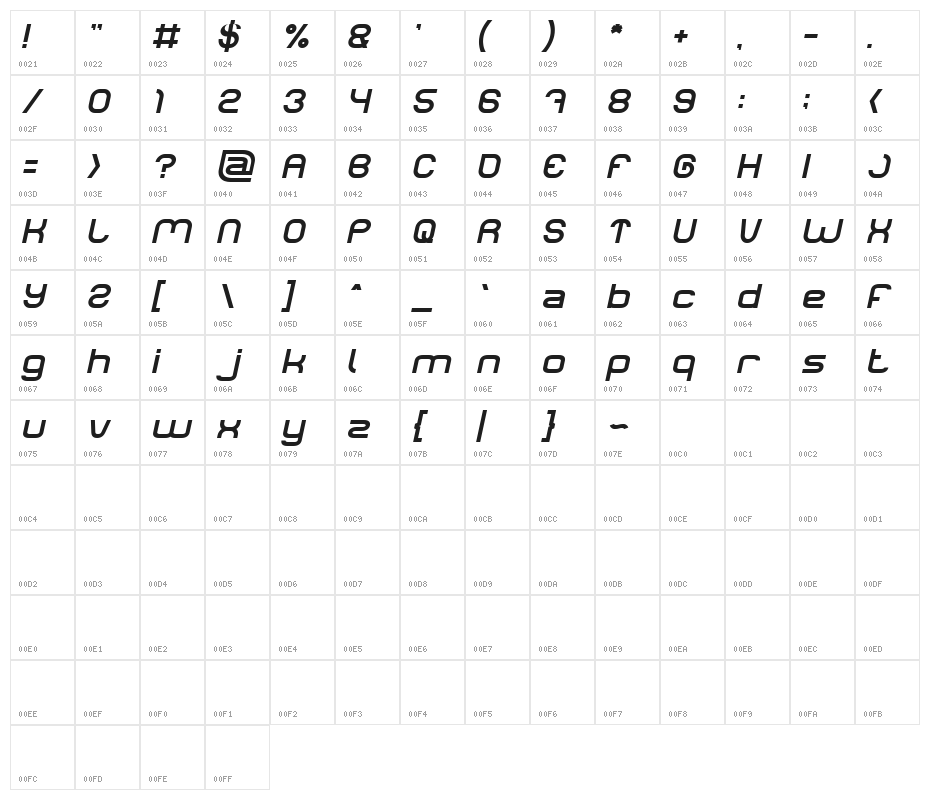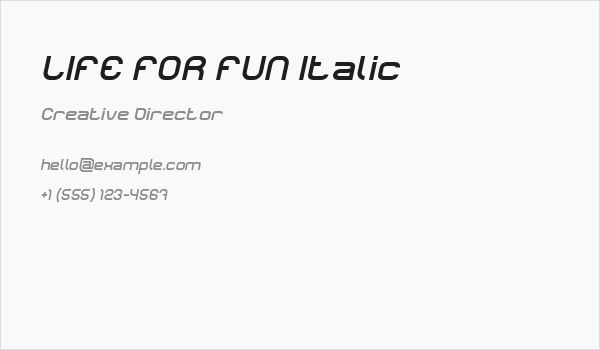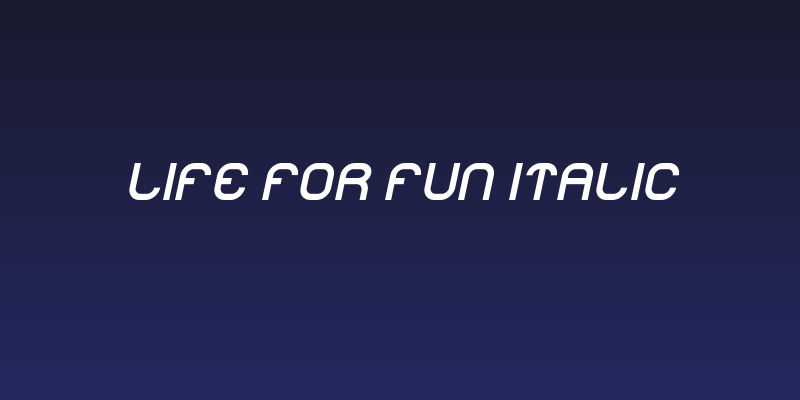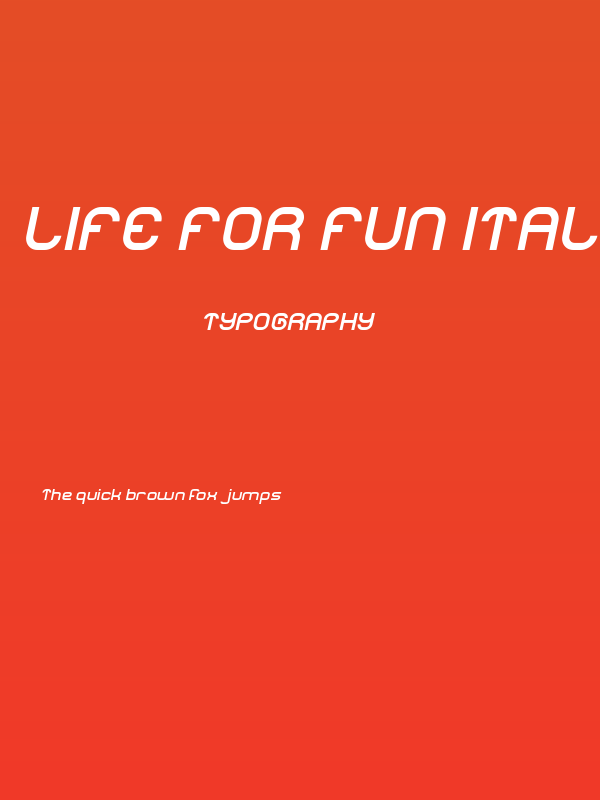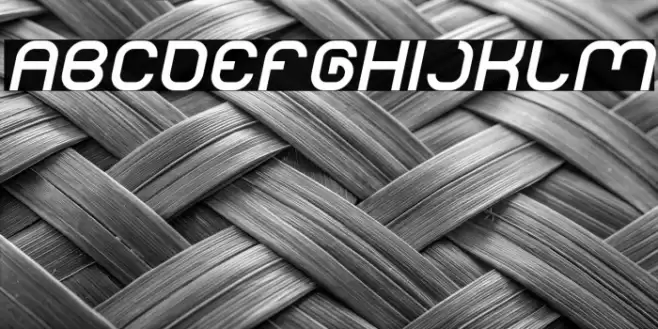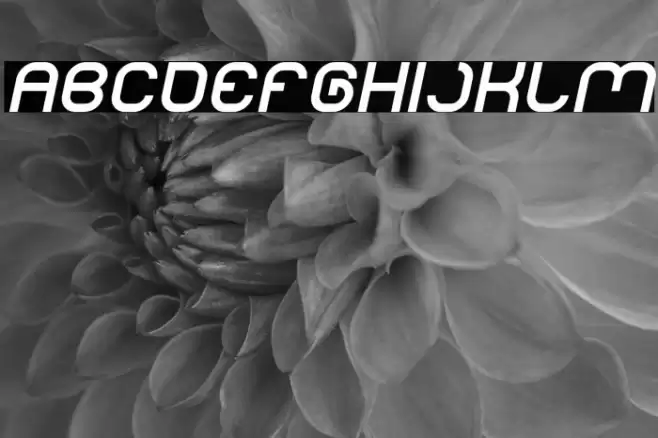
LIFE FOR FUN Italic Font
This font features a modern, sleek design with a slight italic slant, giving it a dynamic and forward-moving appearance. The characters are rounded with a consistent stroke width, contributing to a clean and uniform look. The uppercase and lowercase letters maintain a harmonious balance, while the numerals and special characters are crafted to match the overall style seamlessly. The font's design is both contemporary and versatile, making it suitable for various applications. Its smooth curves and subtle angles add a touch of elegance, while the italic style enhances its sense of motion and energy.
| Use Case | Headlines, Logos, Advertising |
| Proposed Projects | Ideal for branding, advertising, sports-related designs, and modern web interfaces. |